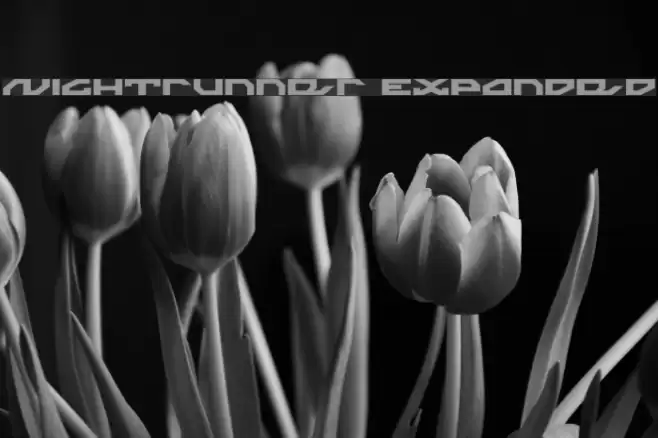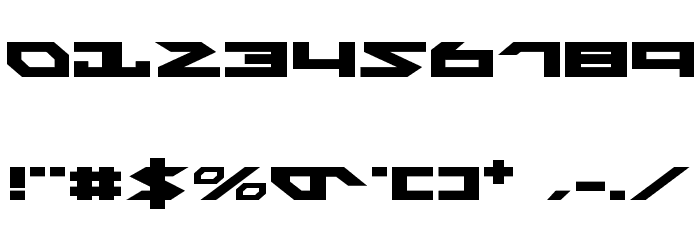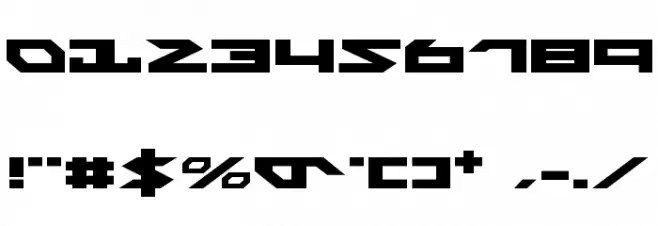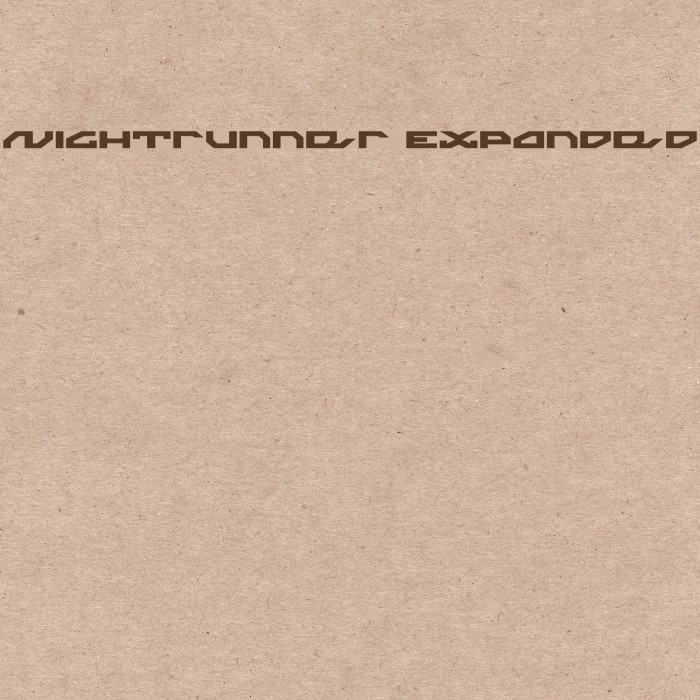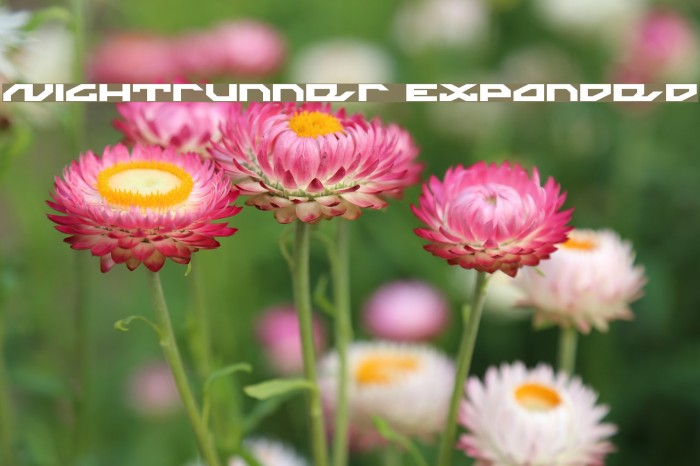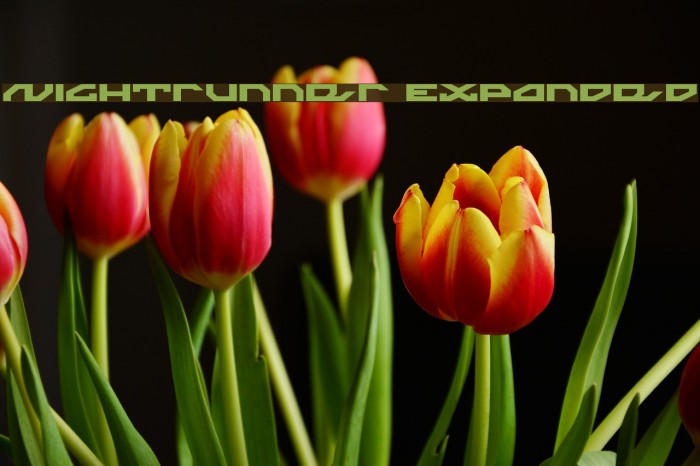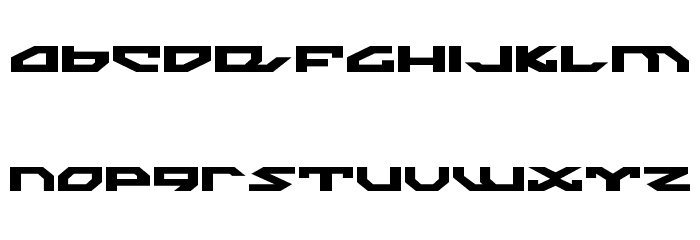
Nightrunner Expanded Font
Nightrunner Expanded Description
This font features a futuristic and angular design, characterized by sharp edges and geometric shapes. The uppercase and lowercase letters maintain a consistent style, with a bold and striking appearance. The numerals and special characters are crafted to match the overall aesthetic, making them suitable for high-impact visual designs. The font's unique style makes it stand out, offering a modern and edgy look that is ideal for projects requiring a strong visual presence.
A bold, futuristic font with sharp, angular shapes from Sci-fi fonts.
- Proposed Projects: Ideal for sci-fi themed projects, video game titles, tech branding, and modern posters.
- Overall Style: Futuristic